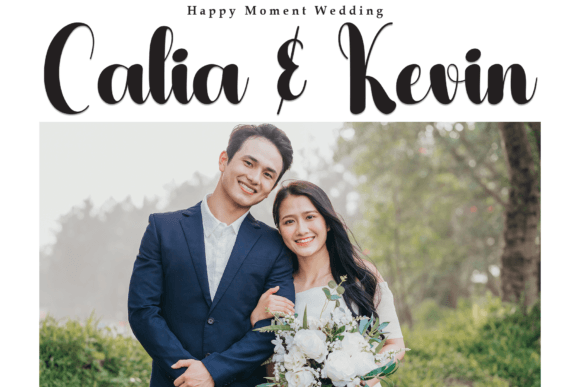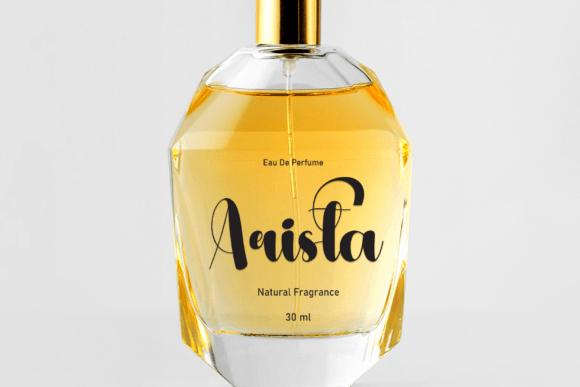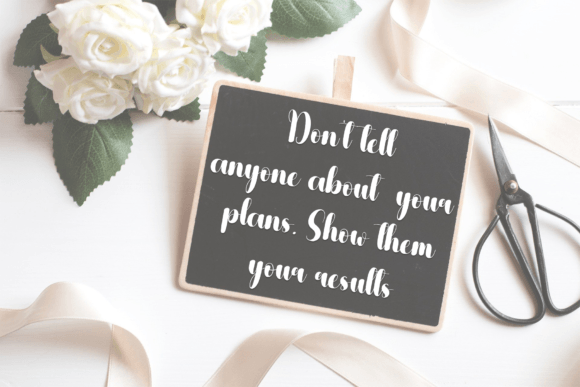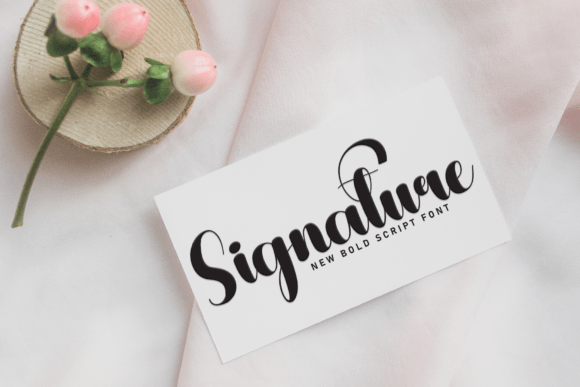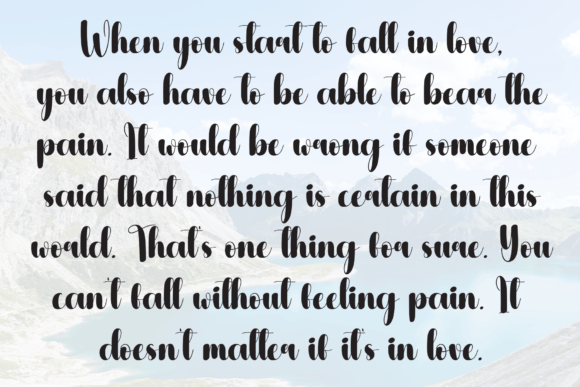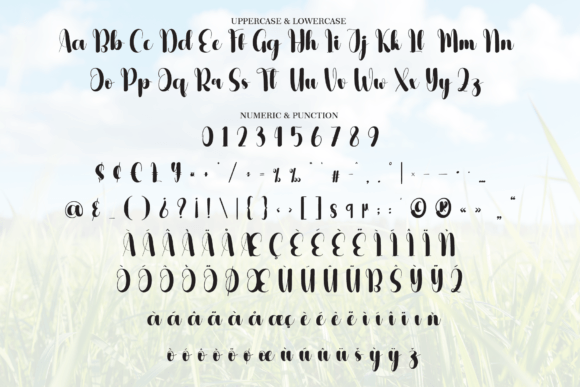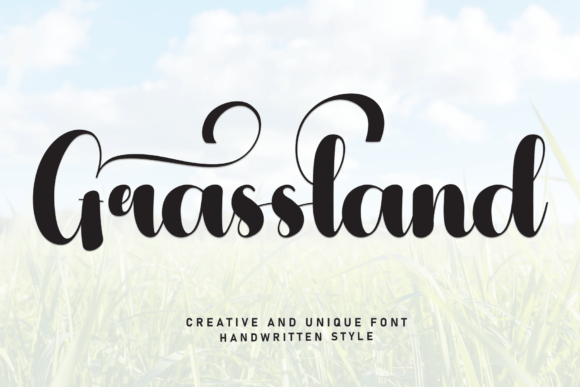
Discover the Serenity of Grassland Font: A Nature-Inspired Typeface
Are you tired of using the same old fonts in your designs? Look no further than Grassland Font, a versatile and organic typeface that captures the essence of nature’s beauty. Inspired by the serene grassy plains, this font is perfect for eco-friendly designs, natural product branding, and earthy aesthetics.
The Inspiration Behind Grassland Font
Grassland Font is a reflection of the natural world’s tranquility and rustic charm. The font’s creator was inspired by the rolling hills, gentle breezes, and lush greenery of the grasslands, seeking to bottle up the sense of calm and serenity that comes with being surrounded by nature. The result is a font that exudes warmth, comfort, and a deep connection to the earth.
Design Characteristics of Grassland Font
Grassland Font boasts a range of design characteristics that make it a standout typeface. Its flowing curves and subtle textures evoke a sense of organic elegance, while its rustic undertones add a touch of earthy charm. The font’s versatility is evident in its ability to be used in a variety of design contexts, from headings and titles to body text and captions.
Key Features of Grassland Font
- Flowing Curves: Grassland Font features smooth, flowing curves that give it a natural, effortless feel.
- Subtle Textures: The font’s subtle textures add depth and visual interest, giving it a tactile, earthy quality.
- Rustic Undertones: Grassland Font’s rustic undertones evoke a sense of nostalgia and warmth, perfect for designs that require a touch of earthy charm.
- Versatility: The font’s versatility makes it suitable for a wide range of design applications, from eco-friendly branding to natural product packaging.
Uses for Grassland Font
Grassland Font is a versatile typeface that can be used in a variety of design contexts. Here are some ideas to get you started:
- Eco-Friendly Branding: Use Grassland Font to create eco-friendly branding that resonates with environmentally conscious audiences.
- Natural Product Packaging: Add a touch of natural elegance to your product packaging with Grassland Font.
- Earthy Aesthetics: Create earthy, rustic designs that evoke a sense of warmth and comfort with Grassland Font.
- Headings and Titles: Use Grassland Font to create stunning headings and titles that add a touch of sophistication to your designs.
Why Choose Grassland Font?
With so many fonts to choose from, why should you choose Grassland Font? Here are just a few reasons:
- Unique Design: Grassland Font boasts a unique design that sets it apart from other typefaces.
- Versatility: The font’s versatility makes it suitable for a wide range of design applications.
- Eco-Friendly: Grassland Font is perfect for eco-friendly designs and branding.
- Easy to Read: The font’s clear, flowing curves make it easy to read, even in smaller sizes.
Grassland Font is a versatile and organic typeface that captures the essence of nature’s beauty. With its flowing curves, subtle textures, and rustic undertones, this font is perfect for eco-friendly designs, natural product branding, and earthy aesthetics. Whether you’re a designer, craft, or simply someone who appreciates the beauty of nature, Grassland Font is a great choice for any design project.